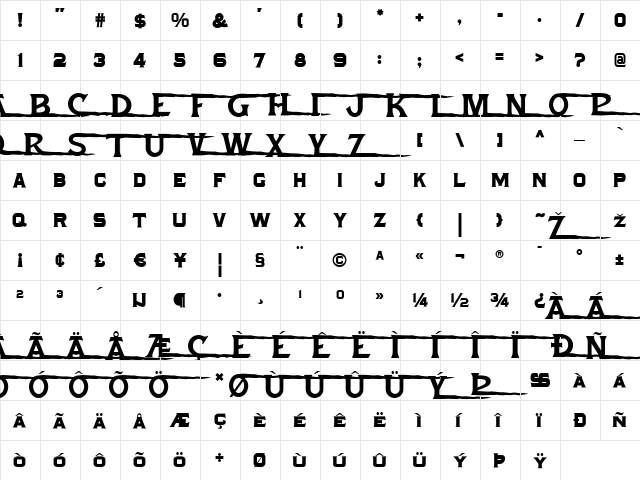
Shadow Lands NF Regular
Design Context for Shadow Lands NF Typeface
Shadow Lands NF is built around its visual character rather than neutral utility — its distinctive forms are designed to make an impression at display sizes.
Font Pairing: Pair with a clean neutral sans-serif for body copy to let Shadow Lands NF's character lead without overwhelming the composition.
Pro Tip: Use Shadow Lands NF exclusively at display sizes — it was designed to be seen, not read at length. Let a neutral companion handle body copy.